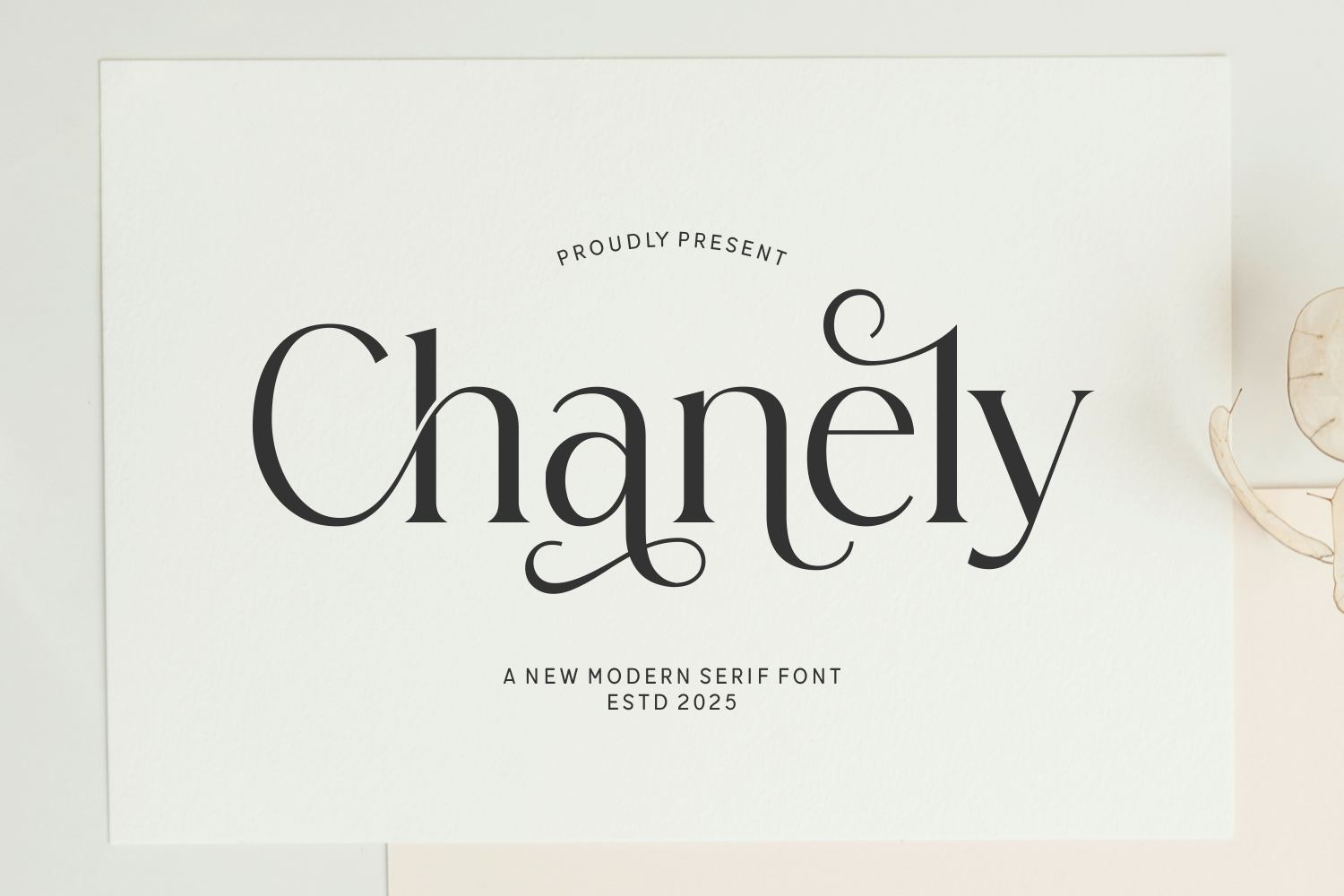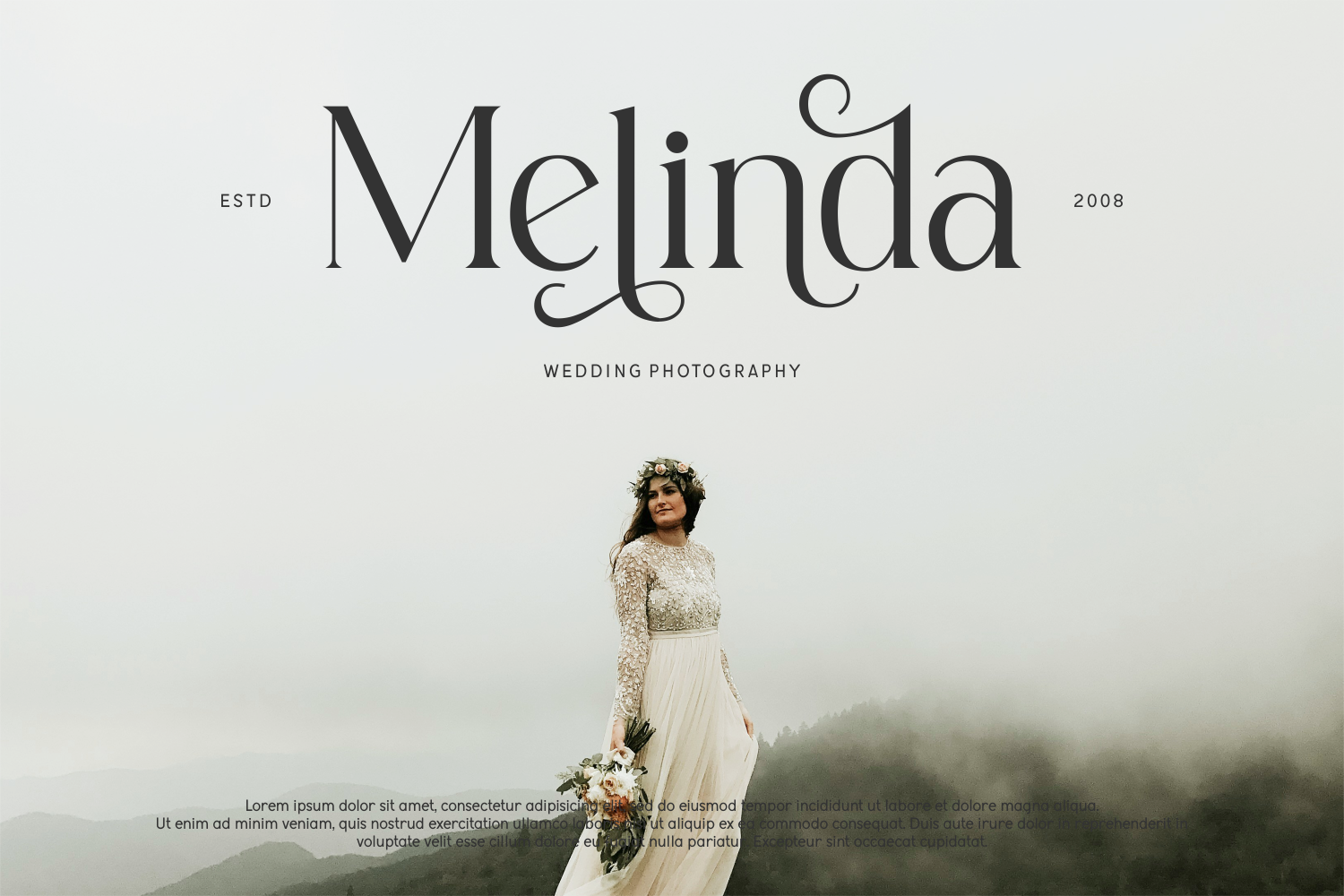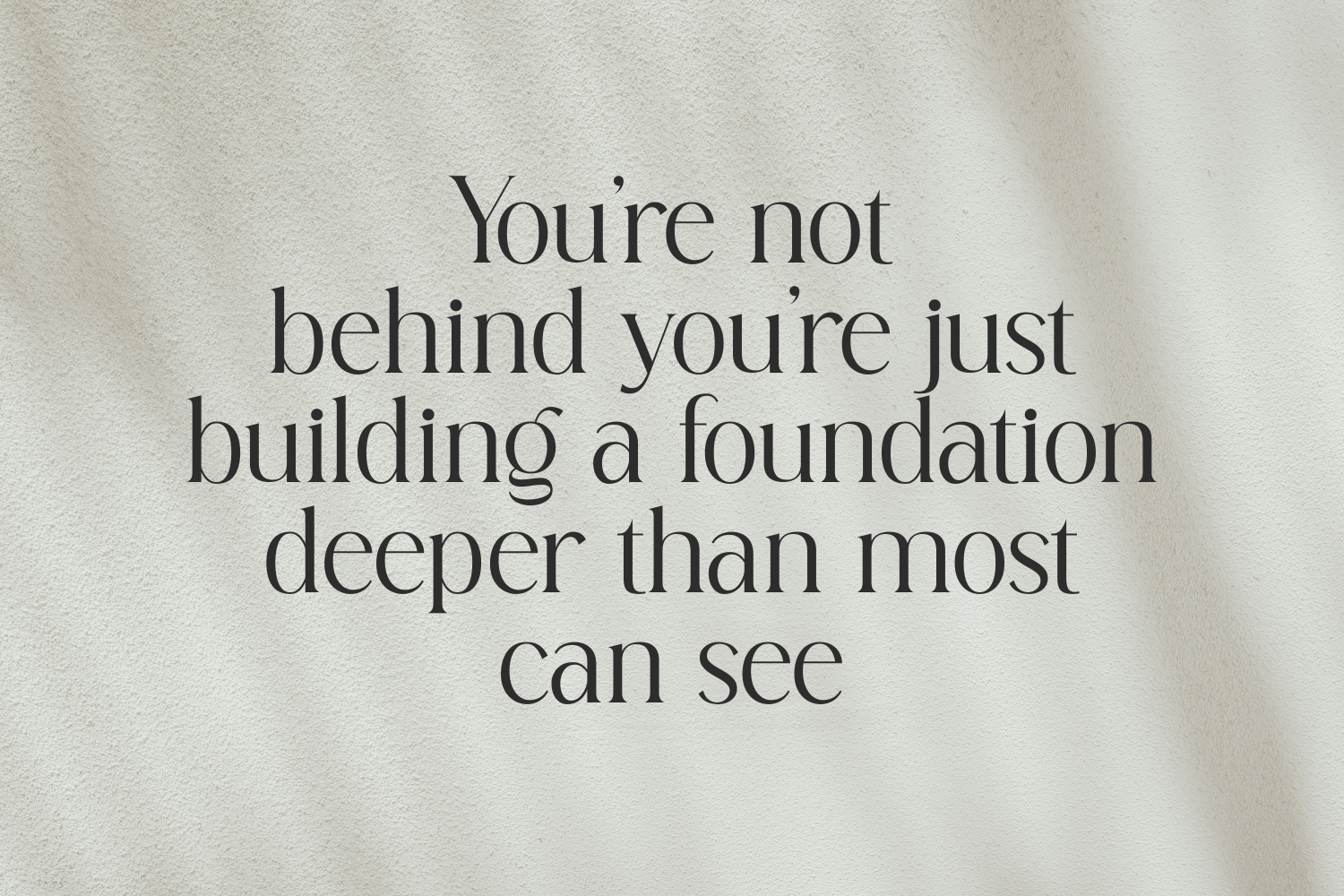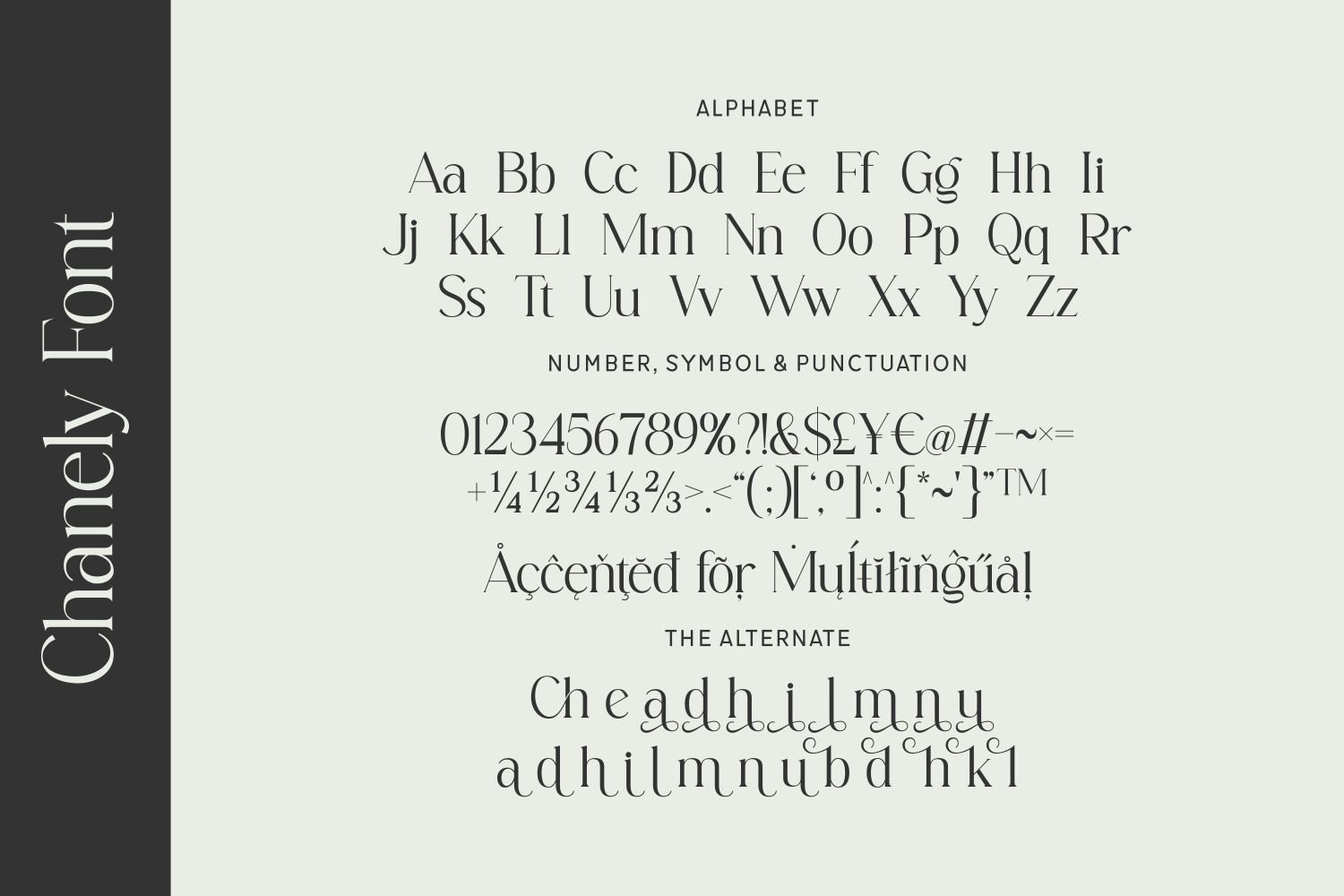
Chanely is a modern serif font with a graceful, romantic flair—perfectly balancing classic form and artistic elegance. Its clean structure ensures readability, while its stylish details add a luxurious, feminine touch. With full multilingual support and expressive alternates, Chanely brings beauty and sophistication to every design.